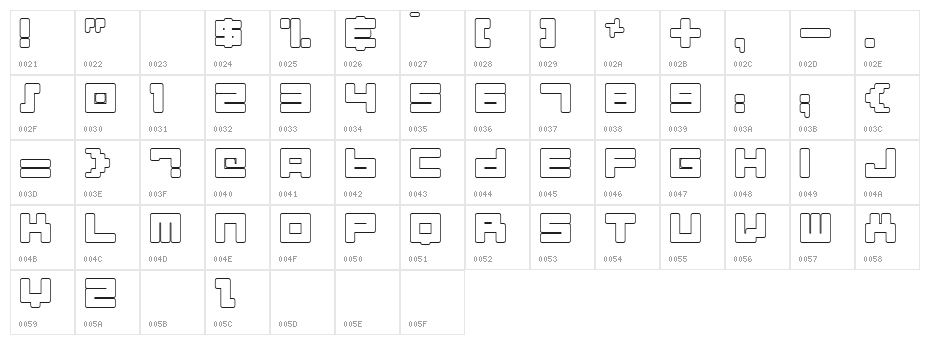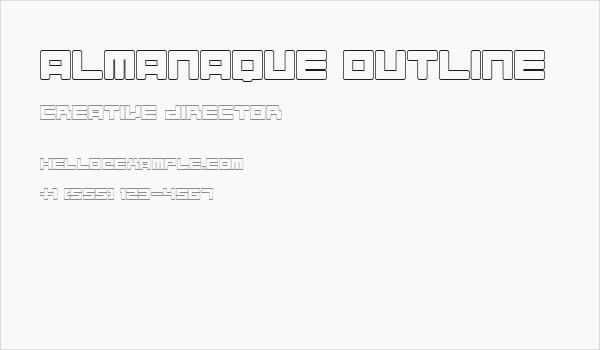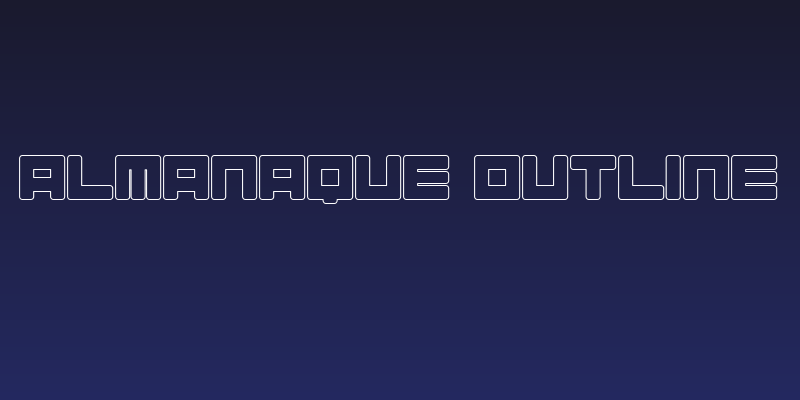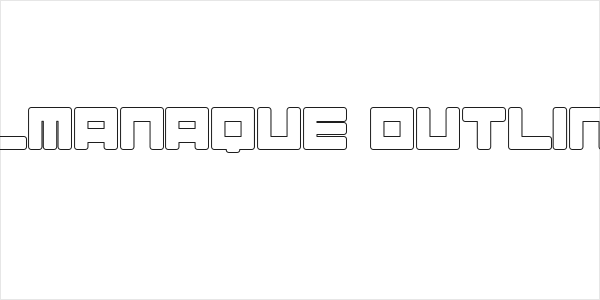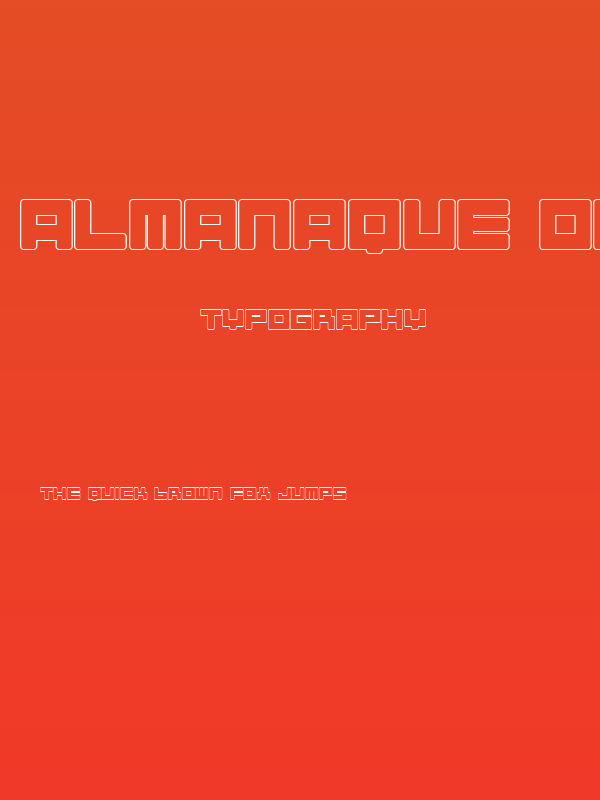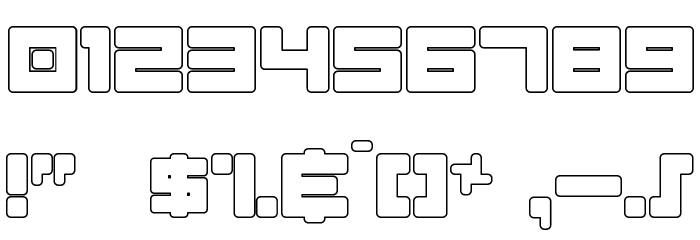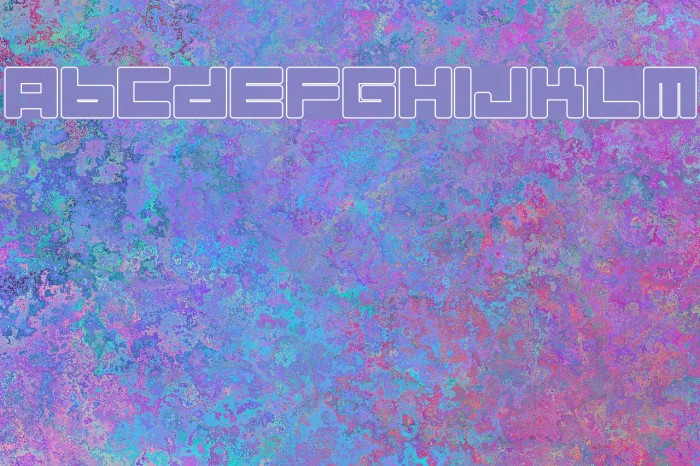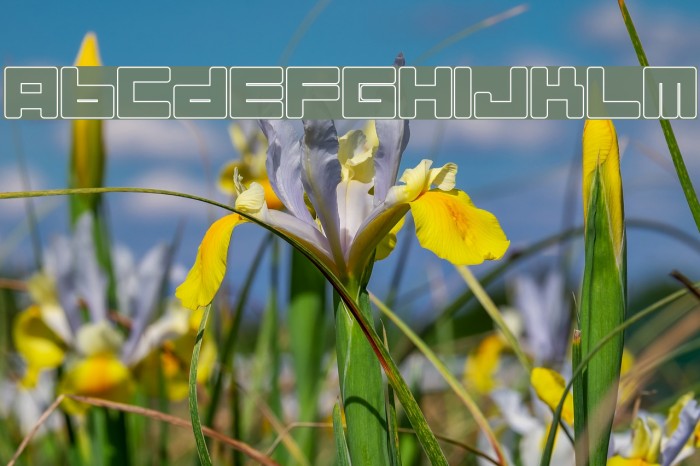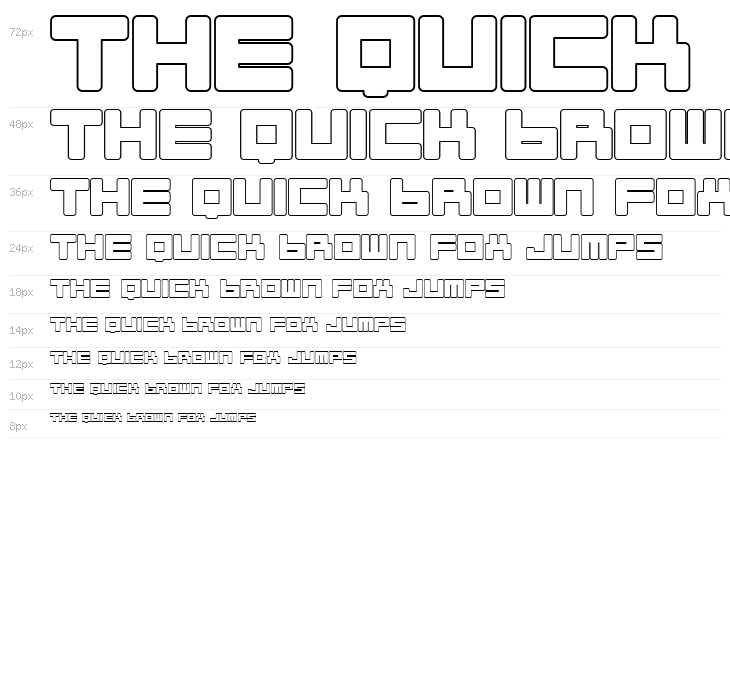
Almanaque Outline Font
Almanaque Outline Description
This font features a bold, geometric outline style that emphasizes a modern and futuristic aesthetic. Each character is crafted with a consistent thickness, creating a uniform and cohesive look across all letters and numbers. The design is clean and minimalistic, with a focus on straight lines and right angles, giving it a structured and orderly appearance. The uppercase and lowercase letters share a similar height, enhancing the font's uniformity. The numbers and special characters are designed to match the letterforms, ensuring a seamless integration in any text. This font's outline style makes it particularly suitable for projects that require a strong visual impact without overwhelming the viewer.
| Proposed Projects | Ideal for branding, posters, headlines, and any design project that requires a striking and modern look. |